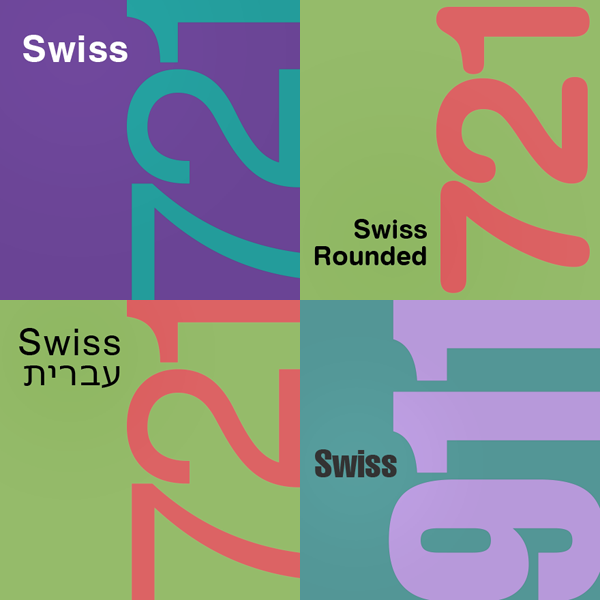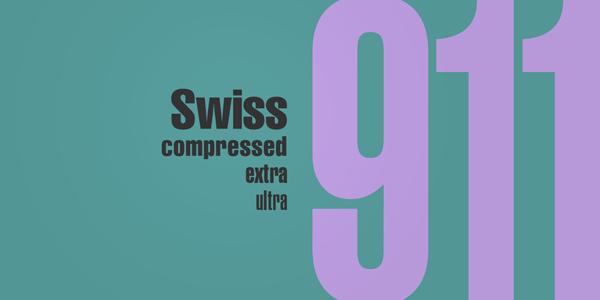
Swiss 721 and Swiss 911 Fonts.
Late Swiss type designer Max Miedinger has created the original Swiss font. The clear and geometric typeface has set standards over the years. Max Miedinger quickly developed the extensive Swiss 721 font family with weights ranging from Thin to Black plus matching Italics and included Outline versions. In addition, he created Swiss 721 Rounded and Swiss 721 Hebrew, both with 2 weights.
Type designers Hans Jörg Hunziker and Matthew Carter completed the family with Swiss 911, an additional compressed version, which is available in 3 weights. Over the years, further subfamilies were created based on the original Swiss font design specifications from Max Miedinger. All of these Swiss fonts offer a precise design and kerning. This versatile sans serif font family works great for both as a display font for striking headlines and legible text font. The Swiss fonts including each subfamily are available as web fonts and desktop fonts, published by type foundry Bitstream.
You do understand that everything you are describing as Swiss 721 here is actually Helvetica, and that Miedinger never ever designed a typeface called Swiss 721?